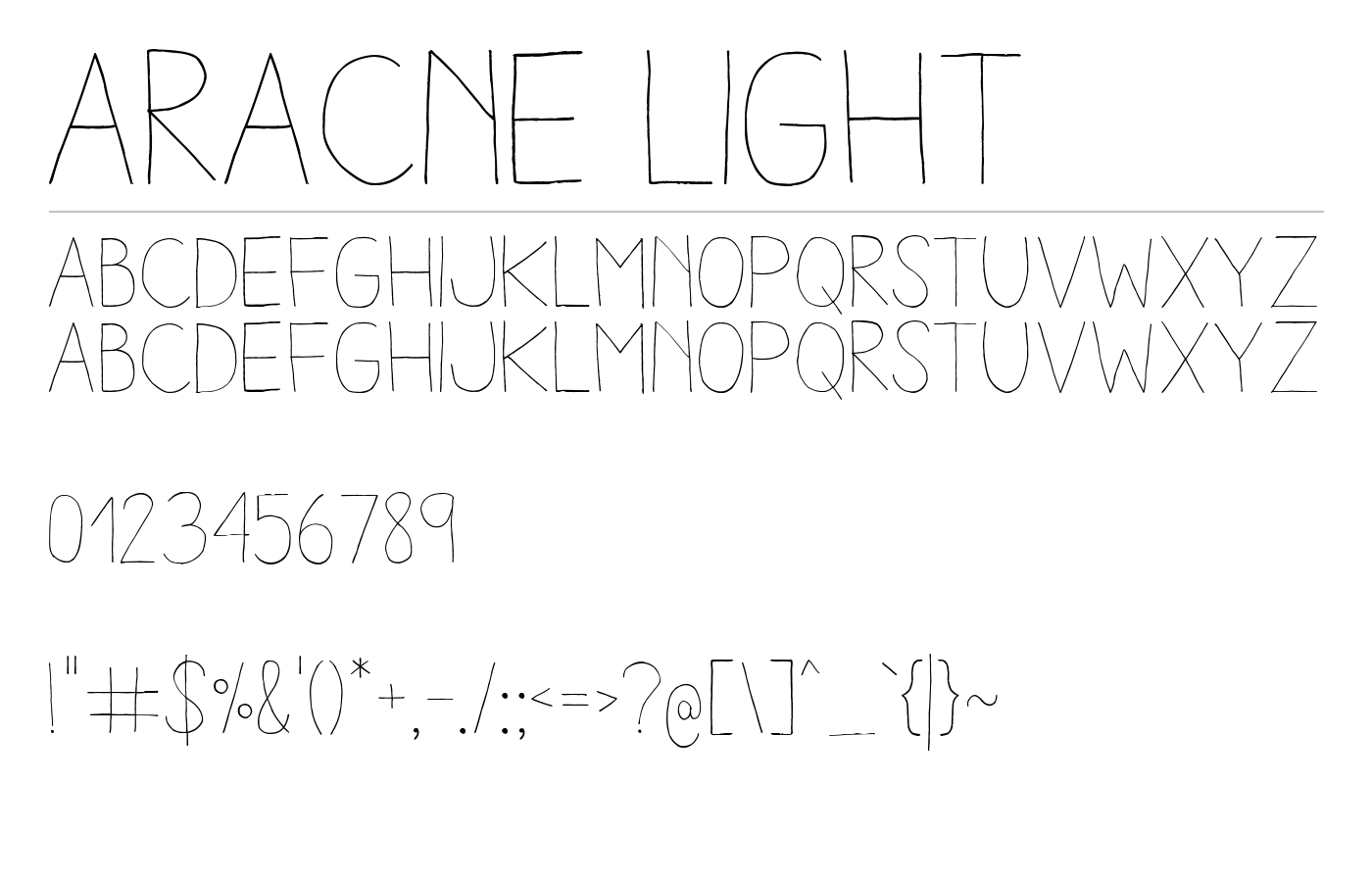
Aracne Regular is a delicate, hand-drawn sans serif font characterized by its tall, thin strokes and light weight, giving it an airy and whimsical feel. Its thin lines and irregular shapes create a quirky, informal personality that works well for creative projects, casual branding, and playful editorial pieces where a unique, personal touch is desired. This font shines best in headlines, logos, and invitations, adding a distinct artistic flair without overwhelming the design.
Aracne Regular Font
About Aracne Regular Font
| Font family | Aracne Regular Font |
| Designer | Julia Martinez Diana, Antipixel |